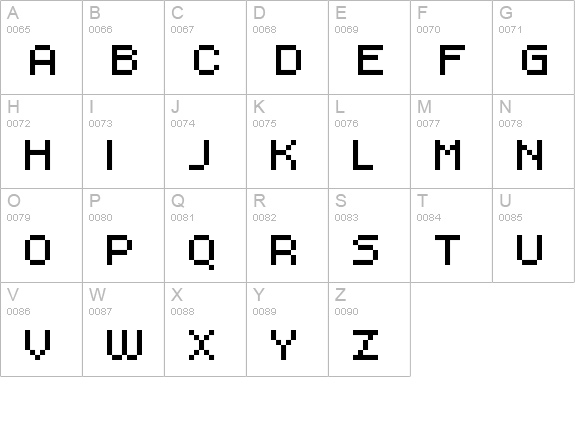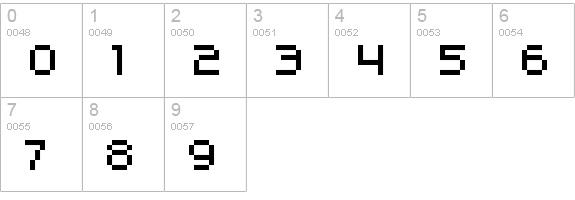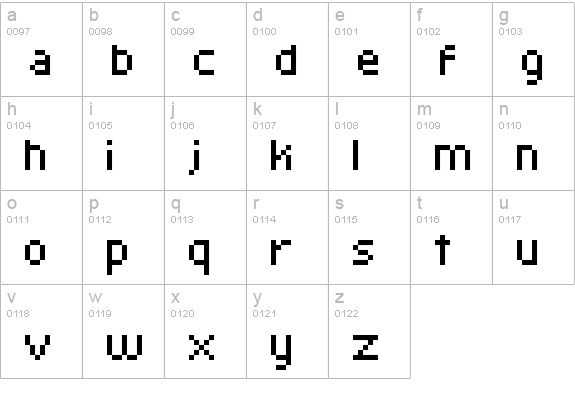
Kroeger 06_56 font is a stunning typeface that exudes elegance and sophistication. With its clean lines and modern aesthetic, this font is perfect for a wide range of design projects, from branding to editorial design. The sleek and stylish letterforms of Kroeger 06_56 font make it a versatile choice for both print and digital applications. The best part? Kroeger 06_56 font is available for free download at FontsMarket.com. You can easily access this beautiful font and add a touch of class to your designs without breaking the bank. Whether you're working on a logo, poster, website, or any other project, Kroeger 06_56 font is sure to elevate your work and make a lasting impression. Don't miss out on this amazing opportunity to enhance your design projects with the timeless beauty of Kroeger 06_56 font. Download it for free today and let your creativity soar!